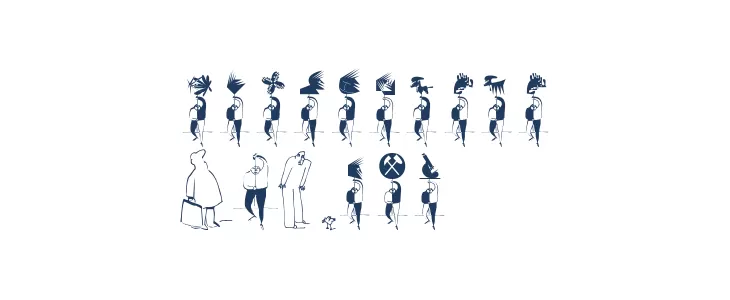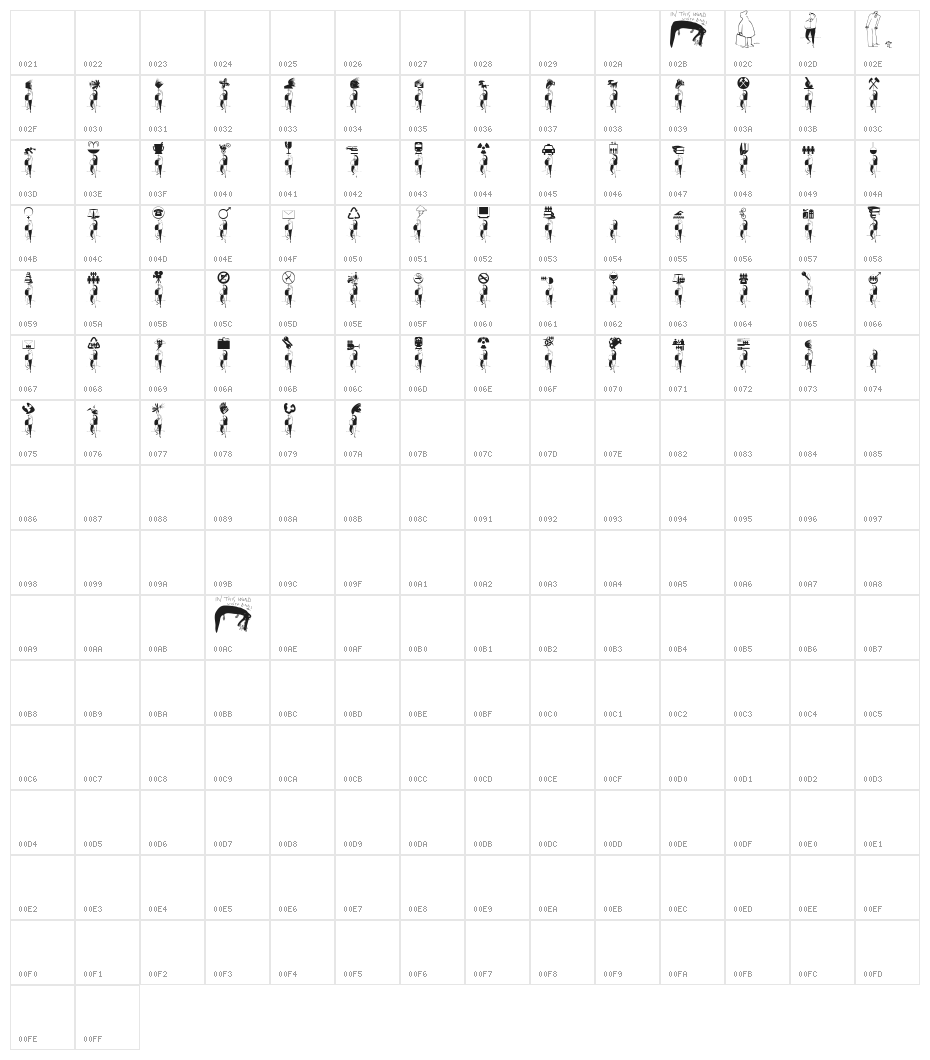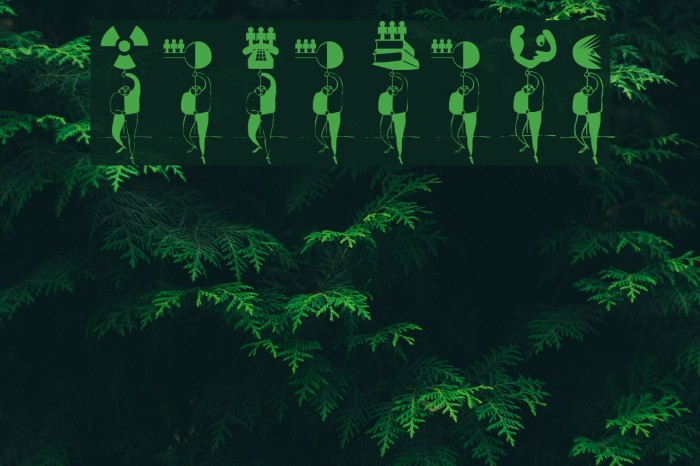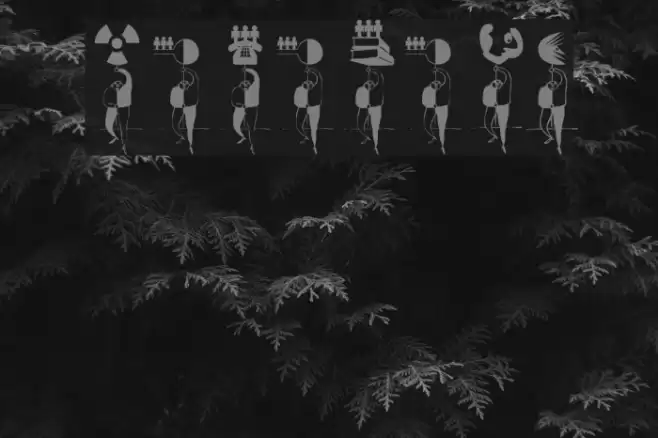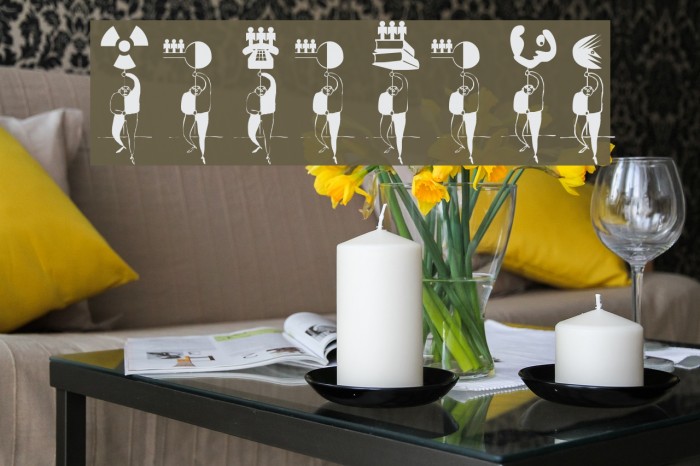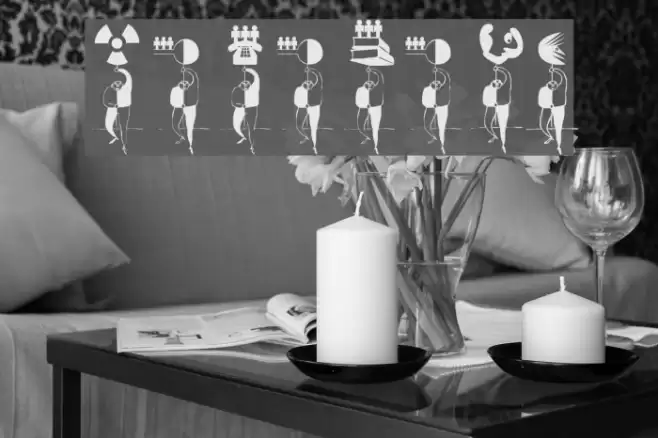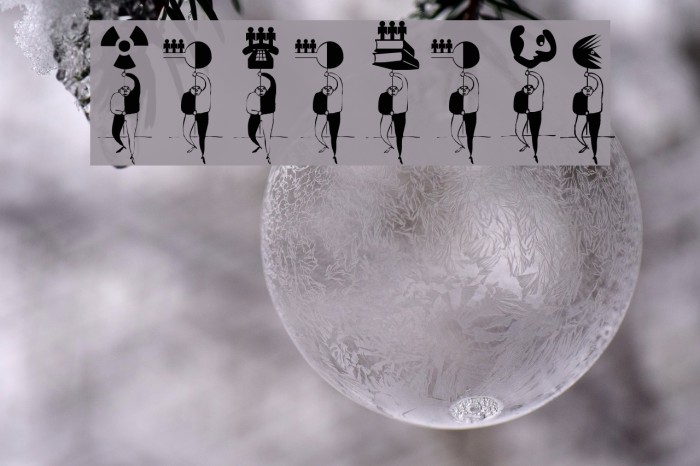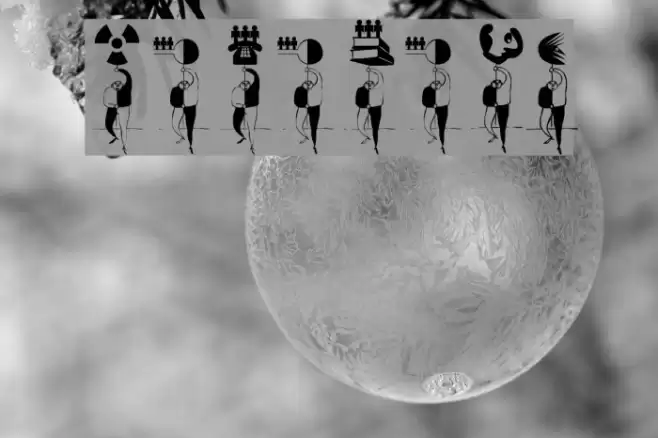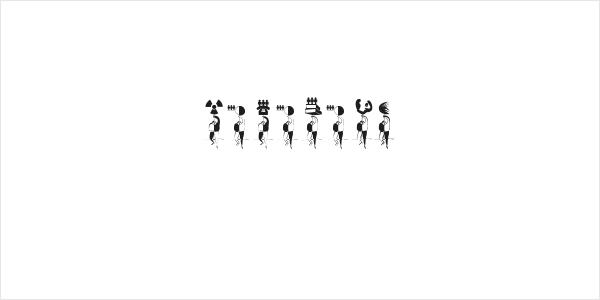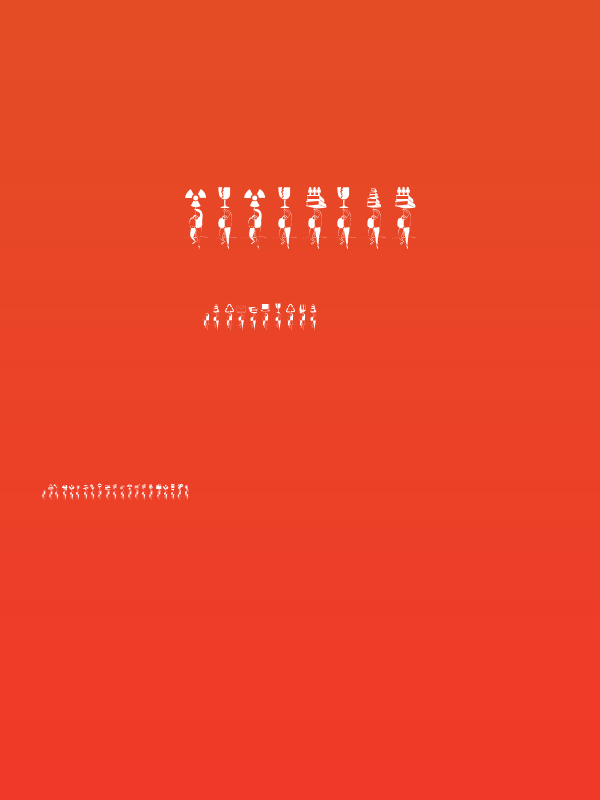
DadaSays Font
DadaSays Description
A highly decorative and illustrative font where each character is represented by a stylized human figure with unique symbols or objects as heads, creating a playful and conceptual visual language.
| Overall Style | Decorative, Conceptual, Whimsical |
| Use Case | Display, Art, Posters, Editorial |
| Proposed Projects | Editorial illustrations, posters, art projects, album covers, conceptual branding. |